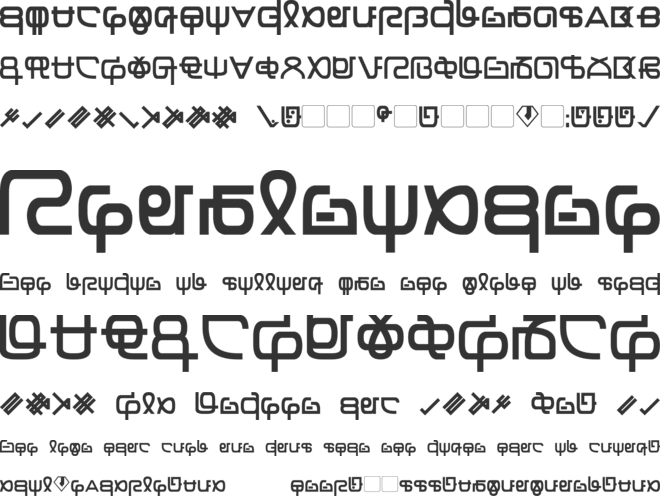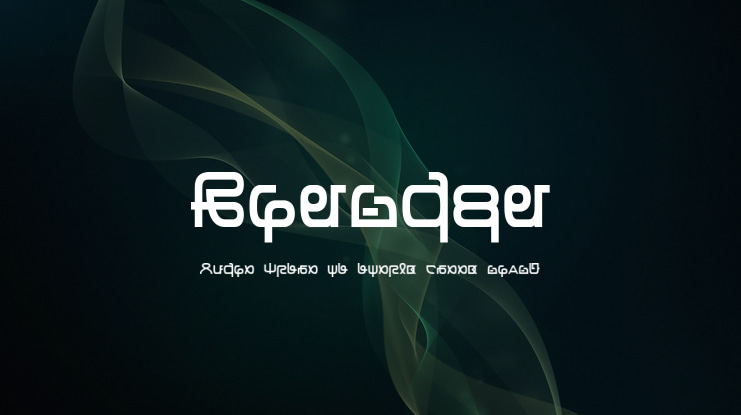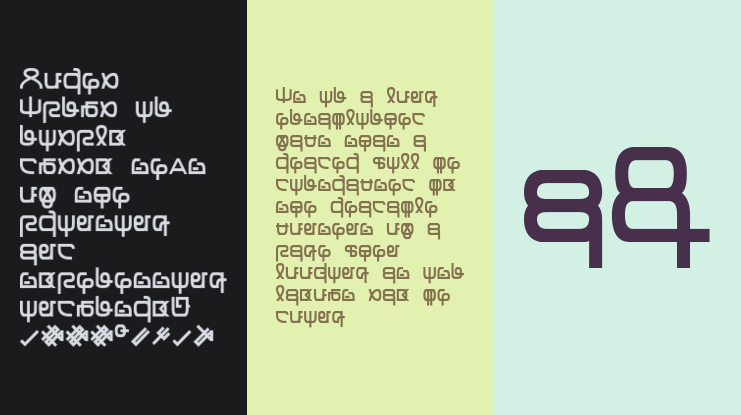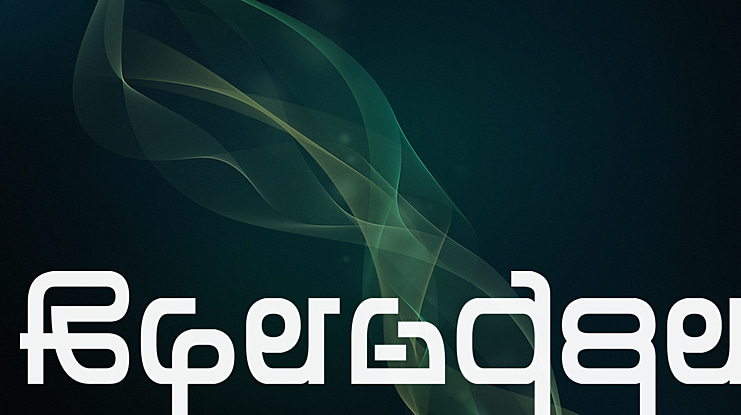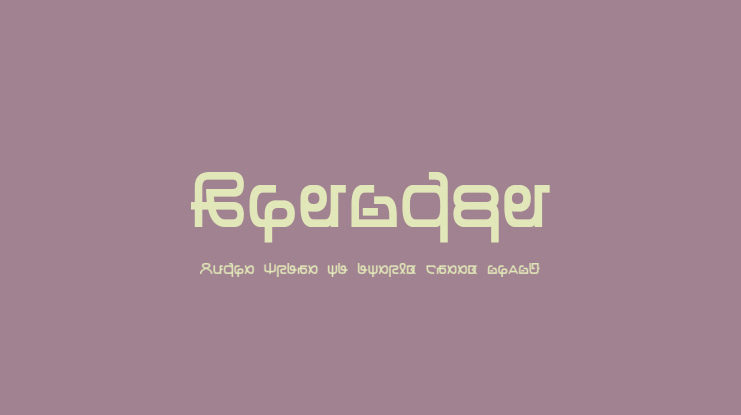
Zentran Font Family
Neale Davidson
Zentran is a modern ‘technical manual’ take on the Zentreadi language that showed up in the legendary Macross (or Robotech) animated series. This version is updated from Geidi Prime’s own Zentran lettering and includes all known characters. Comes in regular and italic faces.